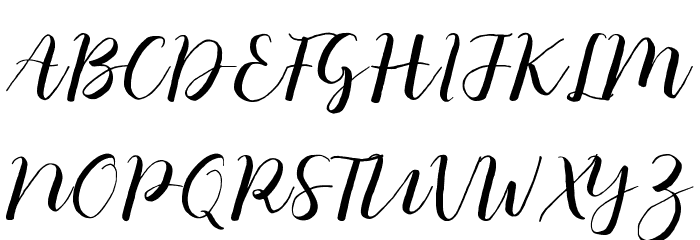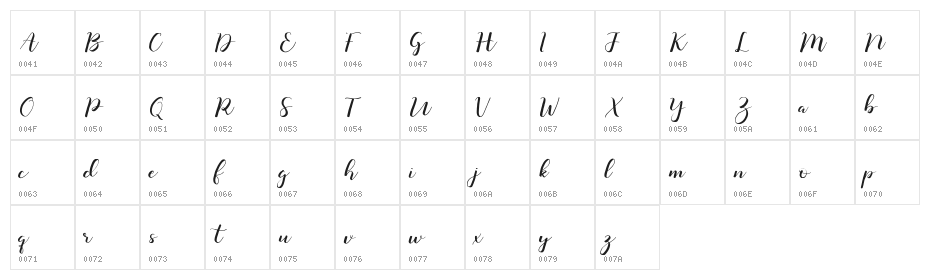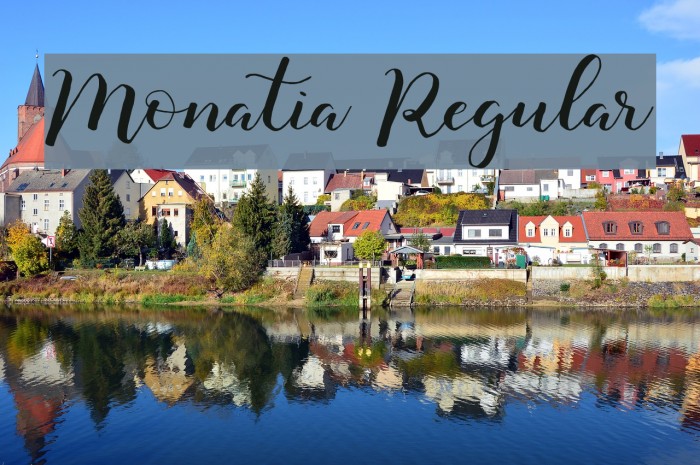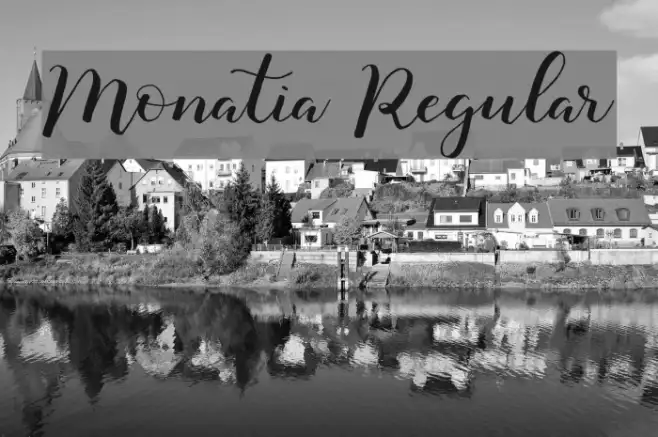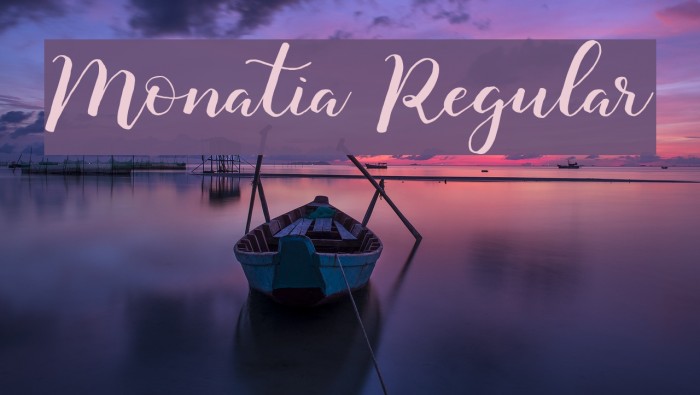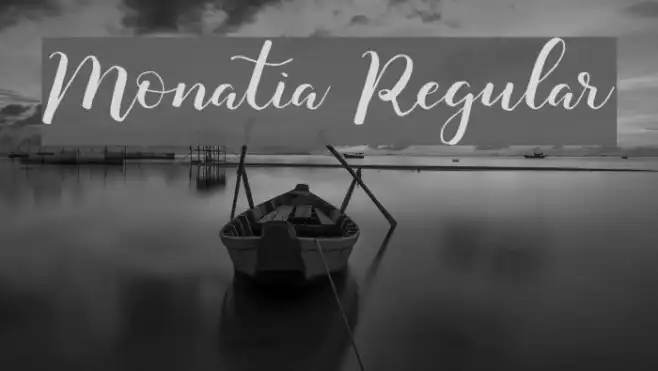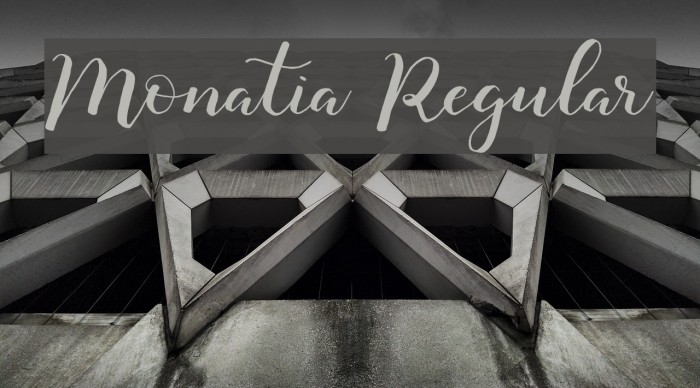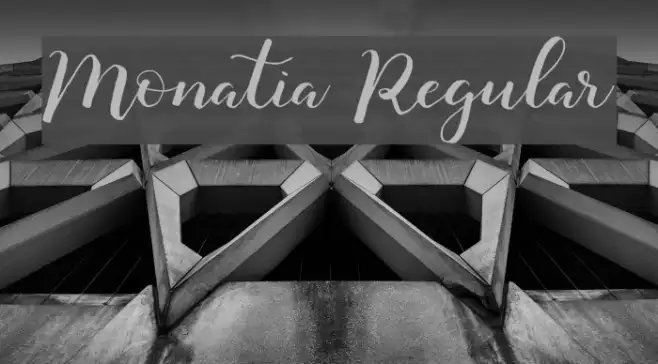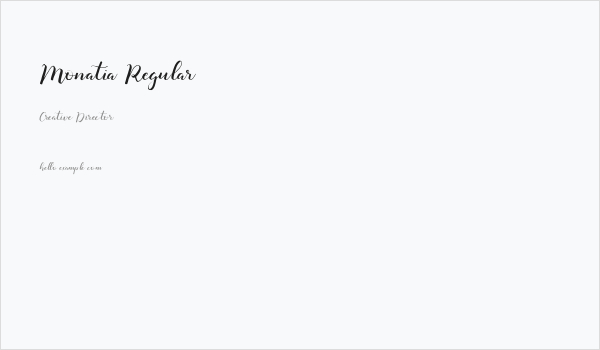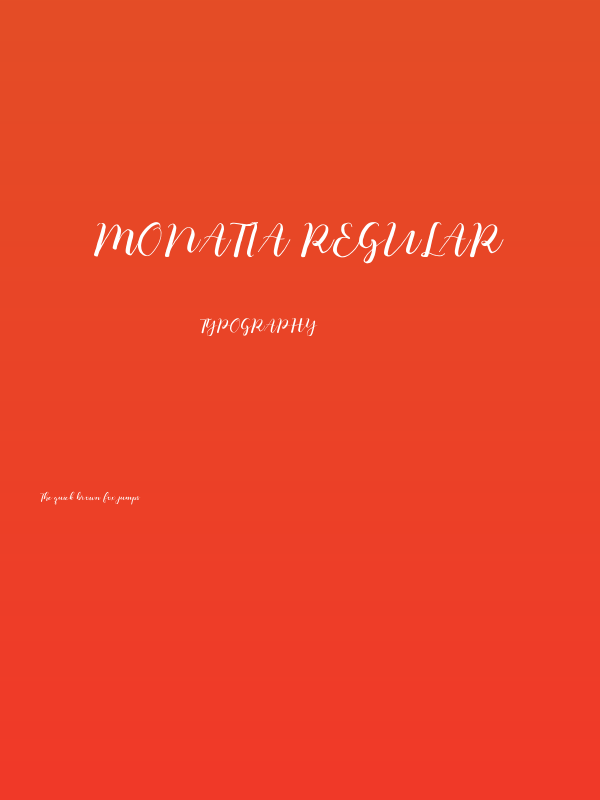
Monatia Regular Font
Monatia Regular Description
This font exhibits a flowing, cursive style with elegant, sweeping strokes that give it a handwritten appearance. The characters are connected, enhancing the script-like quality, while maintaining legibility. The uppercase letters are particularly ornate, with flourishes that add a touch of sophistication. The lowercase letters are more restrained but still carry the same fluidity. The overall design is balanced, with a consistent stroke width that provides a harmonious look. This font is ideal for projects that require a personal, artistic touch.
| Proposed Projects | Ideal for wedding invitations, greeting cards, personal branding, and artistic projects. |